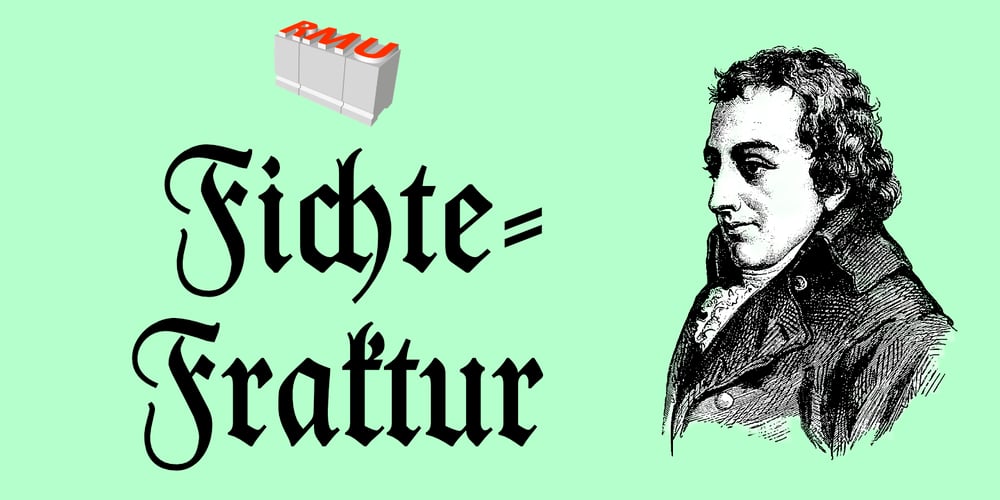
Fichte Fraktur
Fichte Fraktur font
Fichte Fraktur Font Family was designed by Ralph M. Unger and published by RMU. Fichte Fraktur contains 1 styles and family package options. Walter Tiemann’s Fichte-Fraktur, released by Klingspor in 1934, has come to life again.This font contains the traditional long s which can be accessed by either the OT feature historical alternatives or by typing [alt] + b. Two framing elements can be reached by typing [alt] + shift + p and [alt] + p respectively.